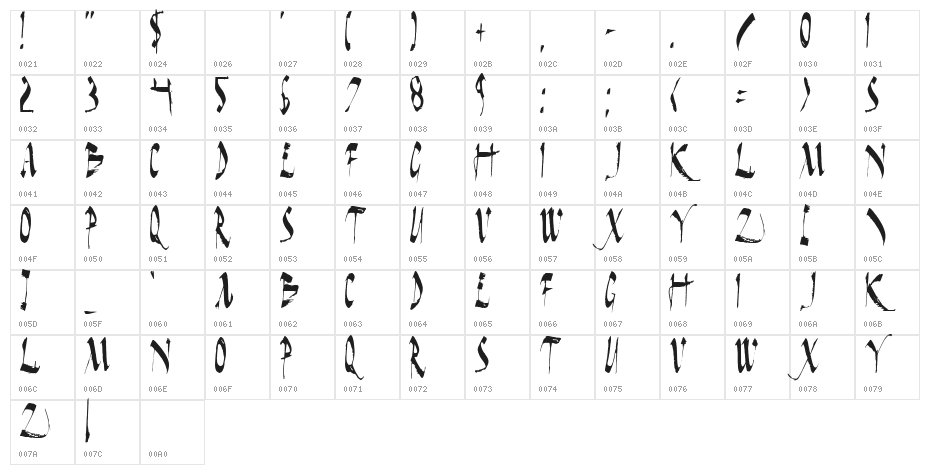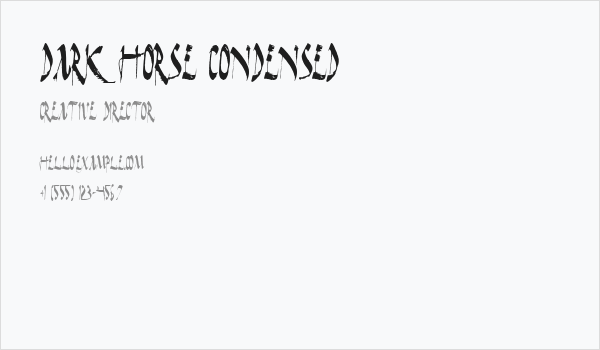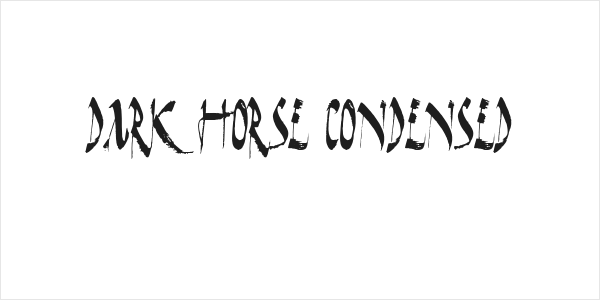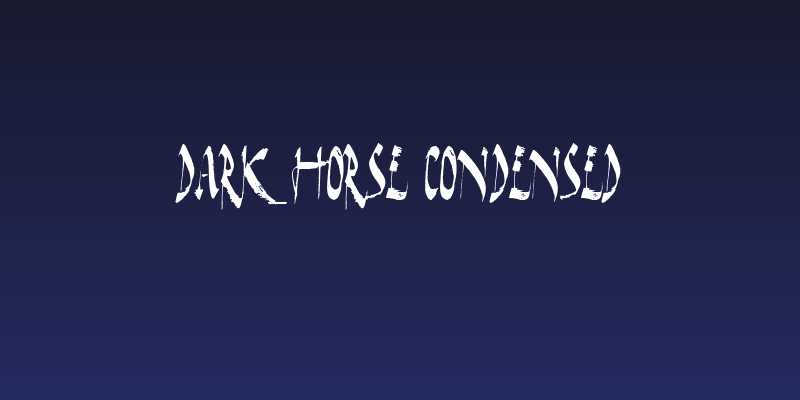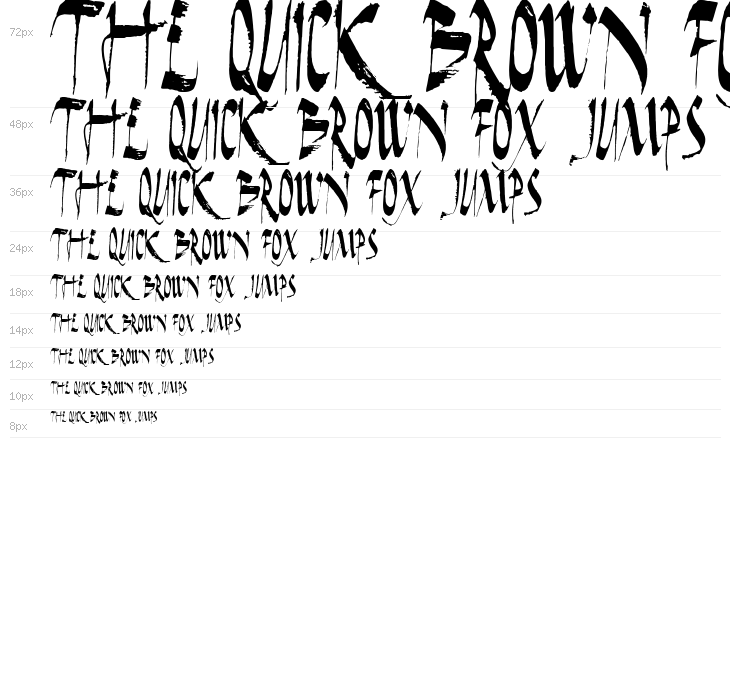
Dark Horse Condensed Font
Dark Horse Condensed Description
This font exhibits a bold, expressive style with a brush-like texture that gives it a dynamic and artistic appearance. The characters are elongated and condensed, creating a sense of movement and fluidity. The strokes vary in thickness, adding a dramatic flair and high contrast to the design. The uppercase and lowercase letters maintain a consistent style, with sharp angles and sweeping curves that enhance its visual impact. The numbers and special characters follow the same aesthetic, ensuring uniformity across all elements.
| Overall Style | Artistic, Expressive |
| Proposed Projects | Ideal for artistic projects, album covers, posters, and branding that require a bold and expressive touch. |